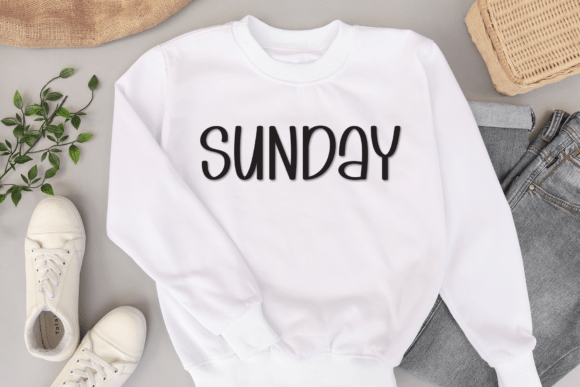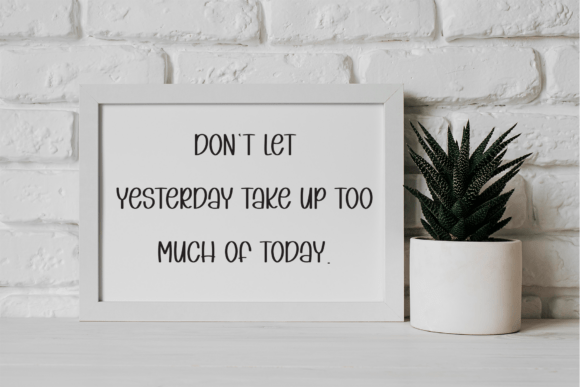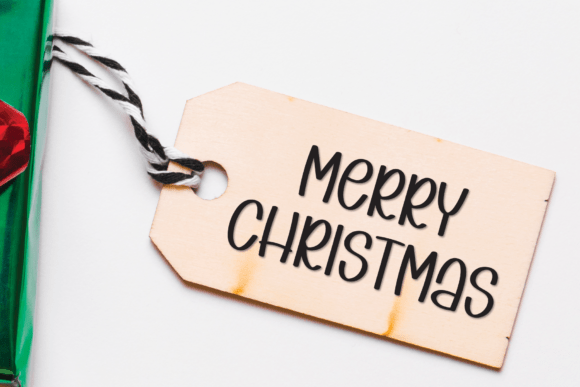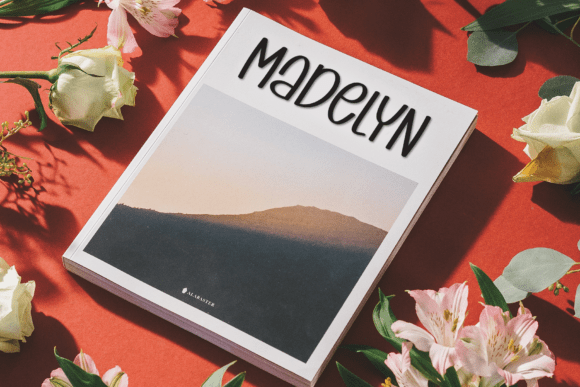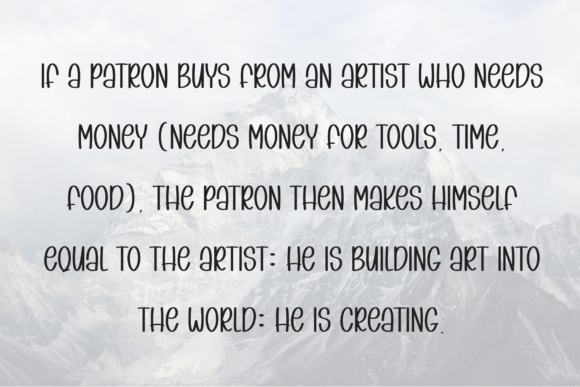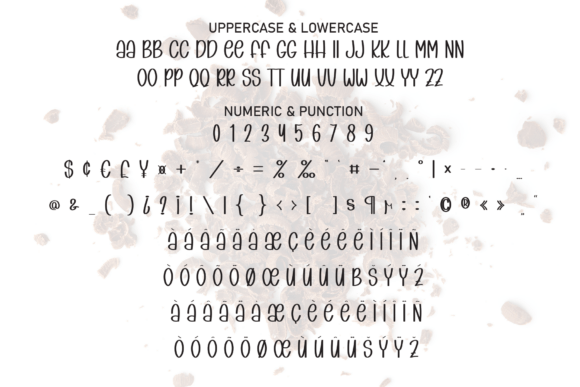
Introducing Choco Crumble Font: The Perfect Blend of Modern Simplicity and Playful Charm
In the world of typography, fonts play a crucial role in conveying the tone and personality of a brand or design. For designers and crafters looking for a font that embodies a fresh and friendly vibe, Choco Crumble is an excellent choice. This casual display font seamlessly blends modern simplicity with a playful, approachable charm, making it perfect for a wide range of design projects.
Clean Shapes, Soft Edges, and Well-Balanced Letterforms
Choco Crumble’s design is characterized by clean shapes, soft edges, and well-balanced letterforms. These features come together to create a font that exudes a sense of relaxed elegance while maintaining clarity and style. The clean shapes provide a modern and sleek look, while the soft edges add a touch of warmth and approachability. The well-balanced letterforms ensure that the font is easy to read, making it perfect for use in a variety of design applications.
Ideal for a Wide Range of Design Projects
Choco Crumble’s versatility makes it an excellent choice for a wide range of design projects. Whether you’re working on posters, branding, packaging, or social media graphics, this font is sure to add a fresh and friendly touch to your design. Its casual and playful vibe makes it perfect for designs that require a more approachable and laid-back feel.
Key Features of Choco Crumble Font
- Modern simplicity: Choco Crumble’s clean shapes and soft edges give it a modern and sleek look that’s perfect for designs that require a fresh and contemporary feel.
- Playful charm: The font’s playful and approachable vibe makes it perfect for designs that require a more relaxed and friendly feel.
- Well-balanced letterforms: Choco Crumble’s well-balanced letterforms ensure that the font is easy to read, making it perfect for use in a variety of design applications.
- Versatile character: The font’s versatile character makes it perfect for use in a wide range of design projects, from posters and branding to packaging and social media graphics.
- Eye-catching appeal: Choco Crumble’s unique and playful design makes it sure to grab attention and add a touch of personality to any design.
Why Choose Choco Crumble Font?
There are many reasons why designers and crafters should choose Choco Crumble font for their design projects. Here are just a few:
- Readability: Choco Crumble’s well-balanced letterforms and clean shapes make it easy to read, even at smaller sizes.
- Personality: The font’s playful and approachable vibe adds a touch of personality to any design, making it perfect for brands and designers who want to stand out.
- Versatility: Choco Crumble’s versatile character makes it perfect for use in a wide range of design projects, from posters and branding to packaging and social media graphics.
- Fresh and friendly feel: The font’s modern simplicity and playful charm give it a fresh and friendly feel that’s perfect for designs that require a more approachable and laid-back vibe.
How to Use Choco Crumble Font in Your Design Projects
Using Choco Crumble font in your design projects is easy. Here are a few tips to get you started:
- Pair it with other fonts: Choco Crumble pairs well with other fonts, making it perfect for use in designs that require a combination of fonts.
- Use it for headlines and titles: The font’s bold and playful design makes it perfect for use in headlines and titles.
- Add a pop of color: Choco Crumble’s clean shapes and soft edges make it perfect for use with bright and bold colors.
In conclusion, Choco Crumble font is a versatile and playful font that’s perfect for designers and crafters looking for a fresh and friendly vibe. Its modern simplicity, clean shapes, and well-balanced letterforms make it easy to read and perfect for use in a wide range of design projects. With its eye-catching appeal and personality, Choco Crumble is sure to add a touch of charm to any design.